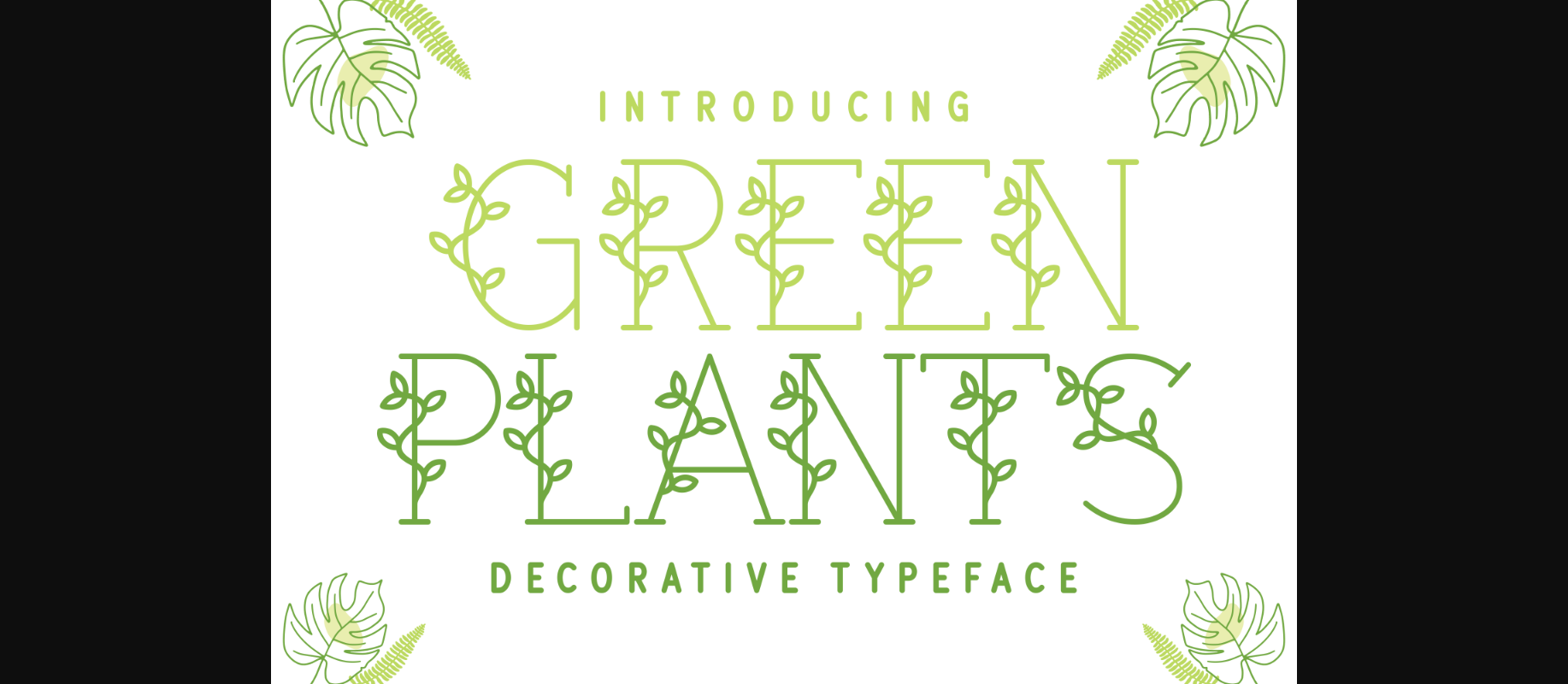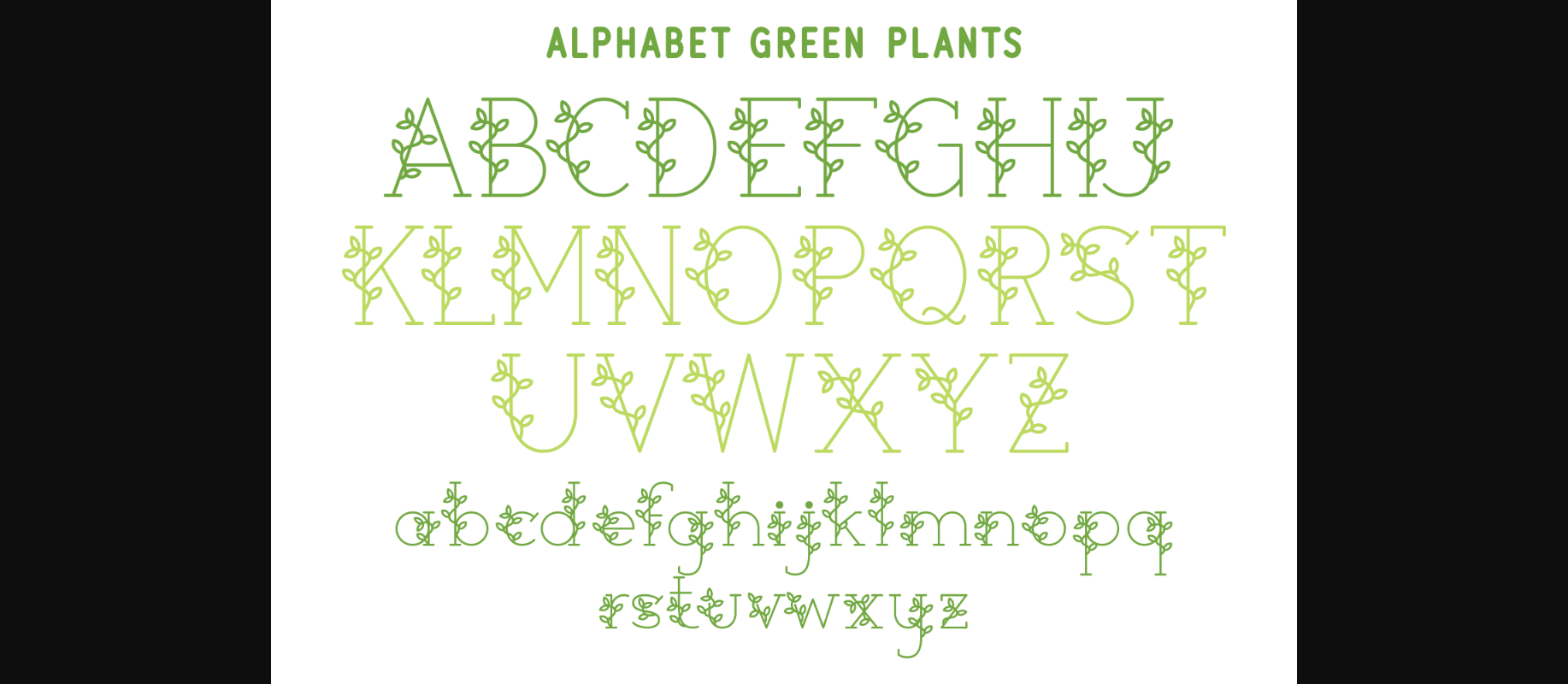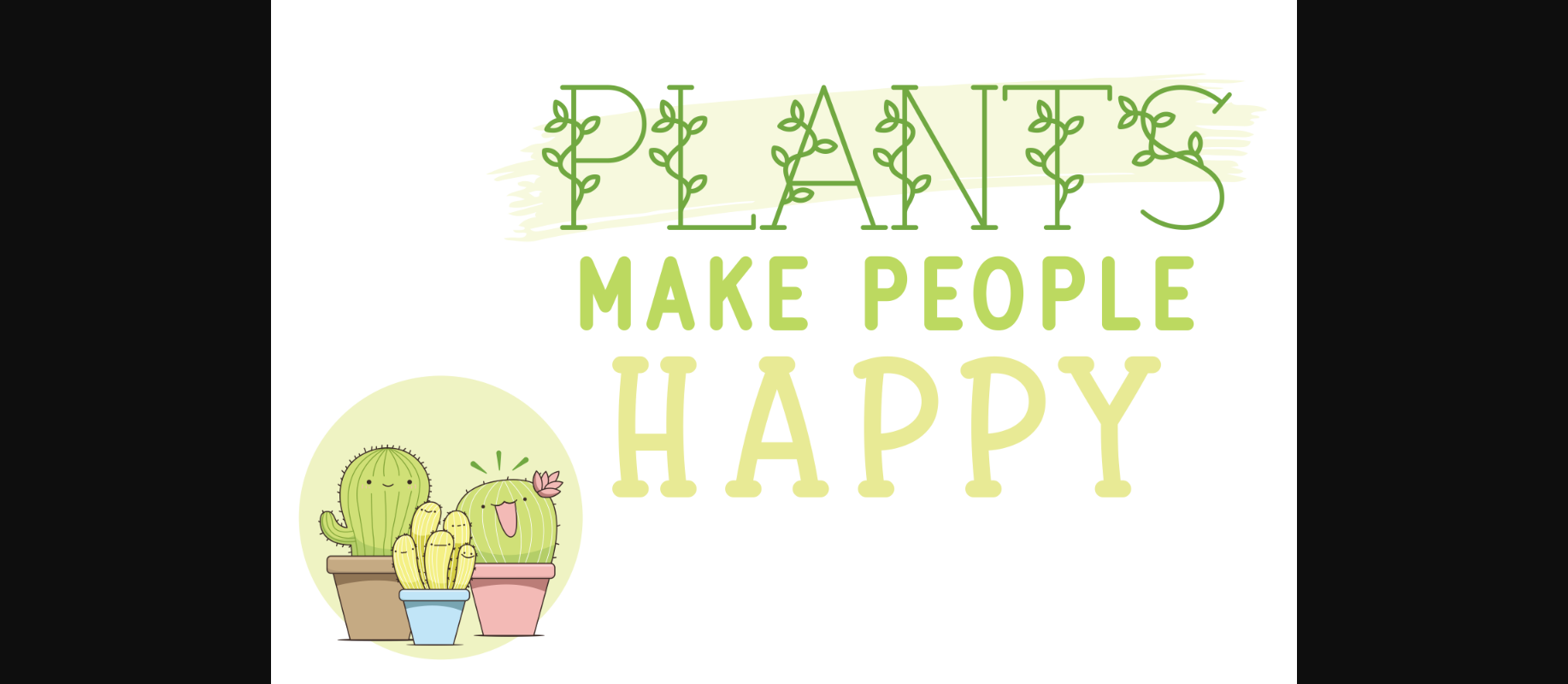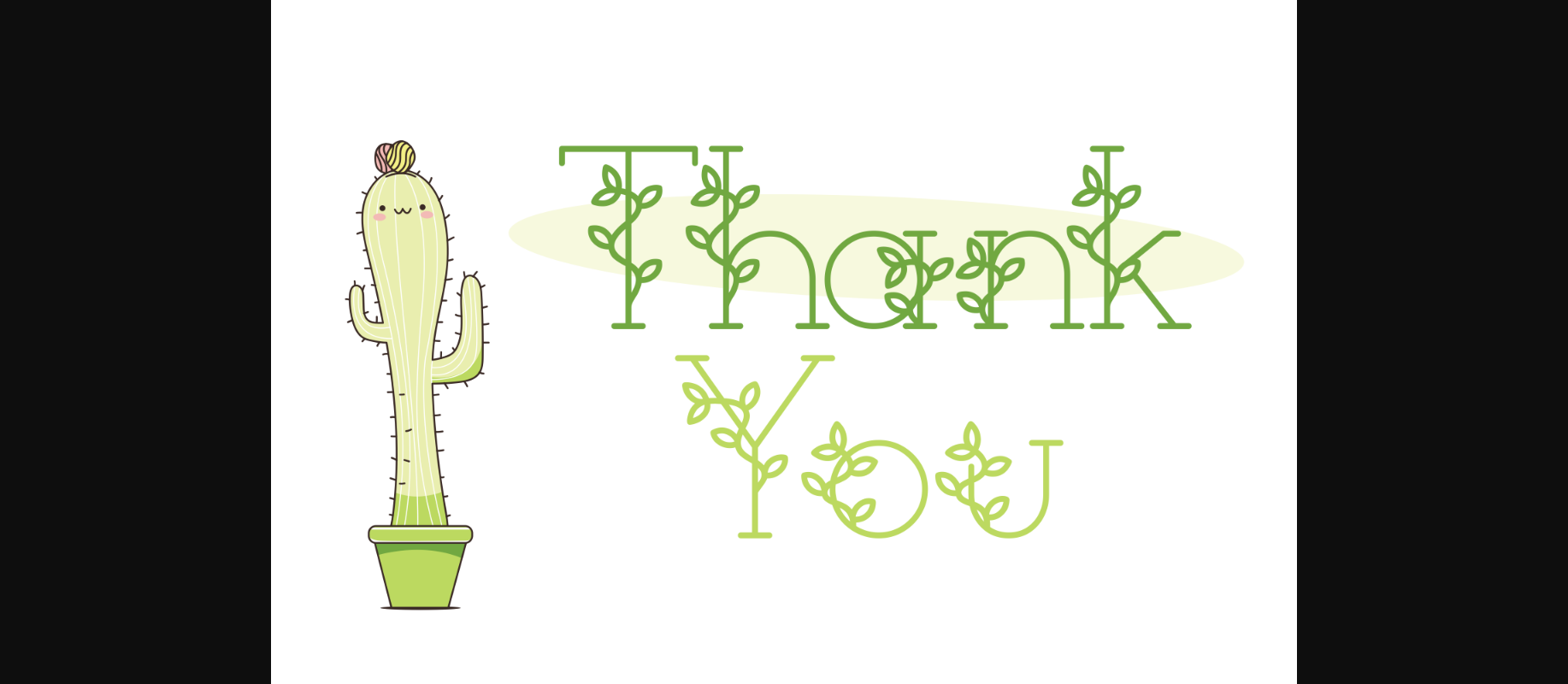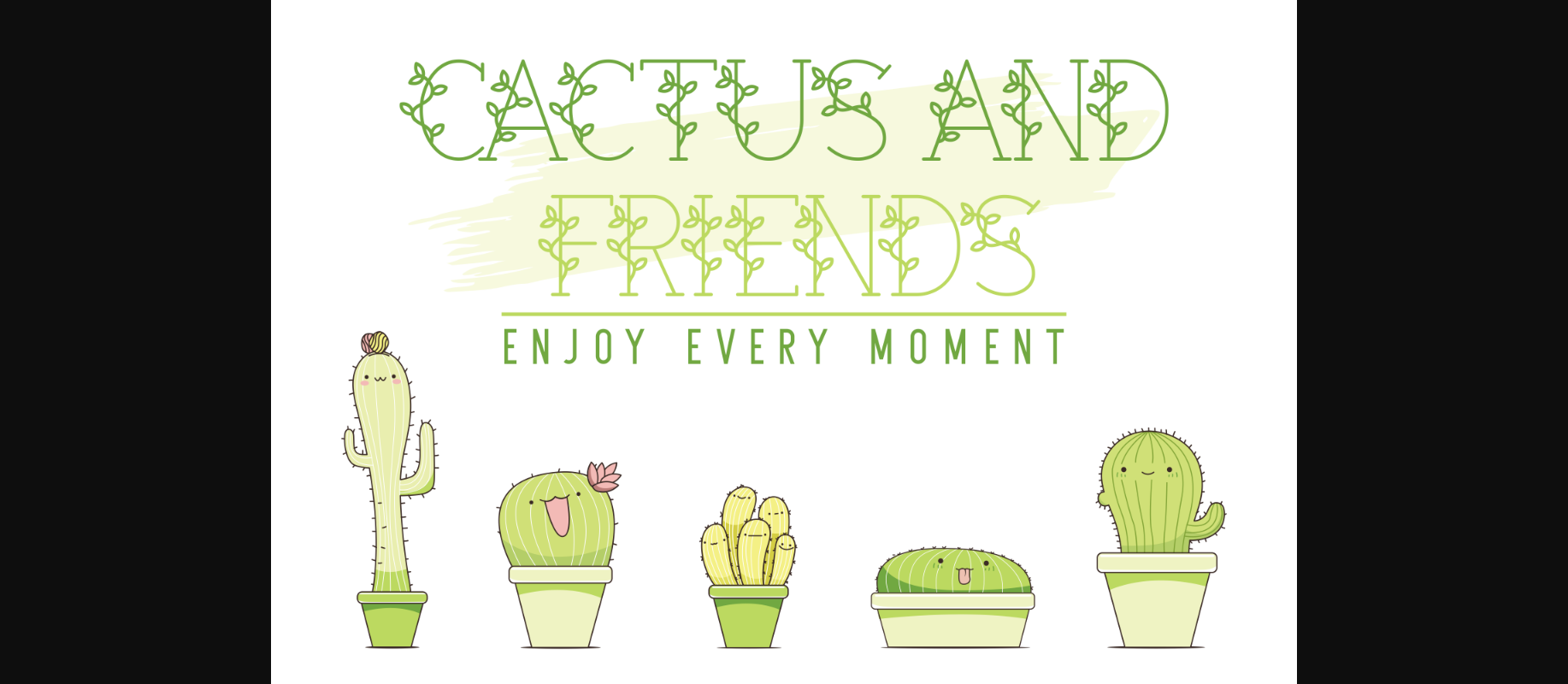
Green Plants Font
About Green Plants Font
Green Plants is a beautiful decorative font perfect for any design you can think of! Masterfully crafted to become a true favorite, this font has the potential to bring each of your creative ideas to their highest level!